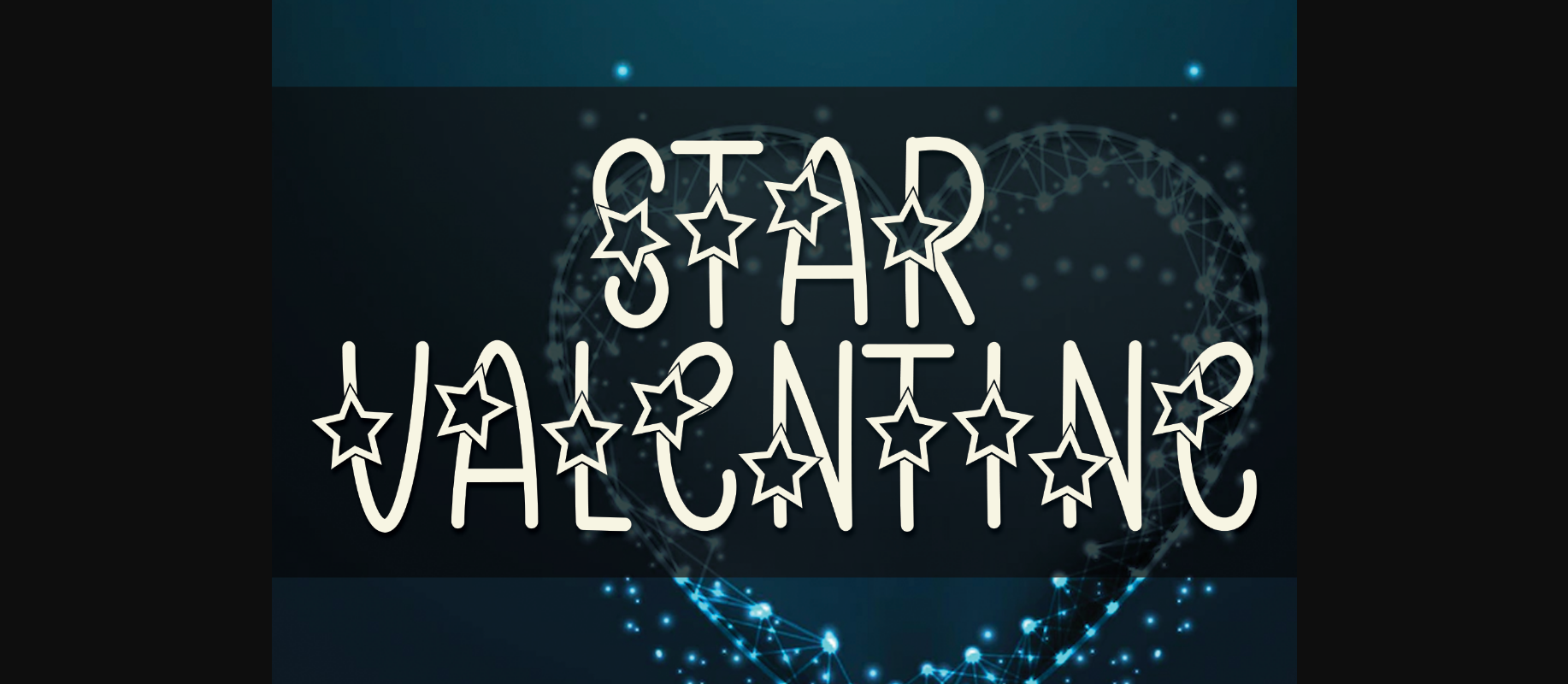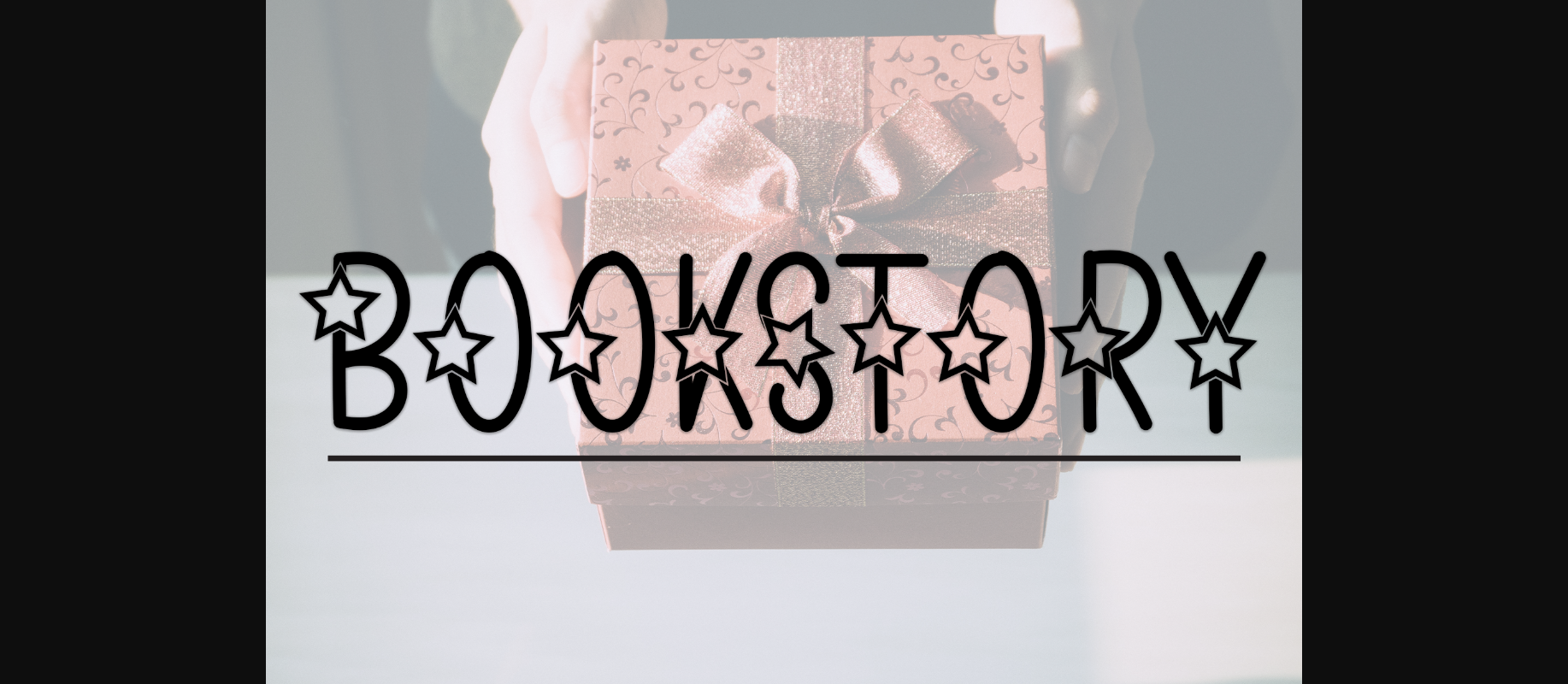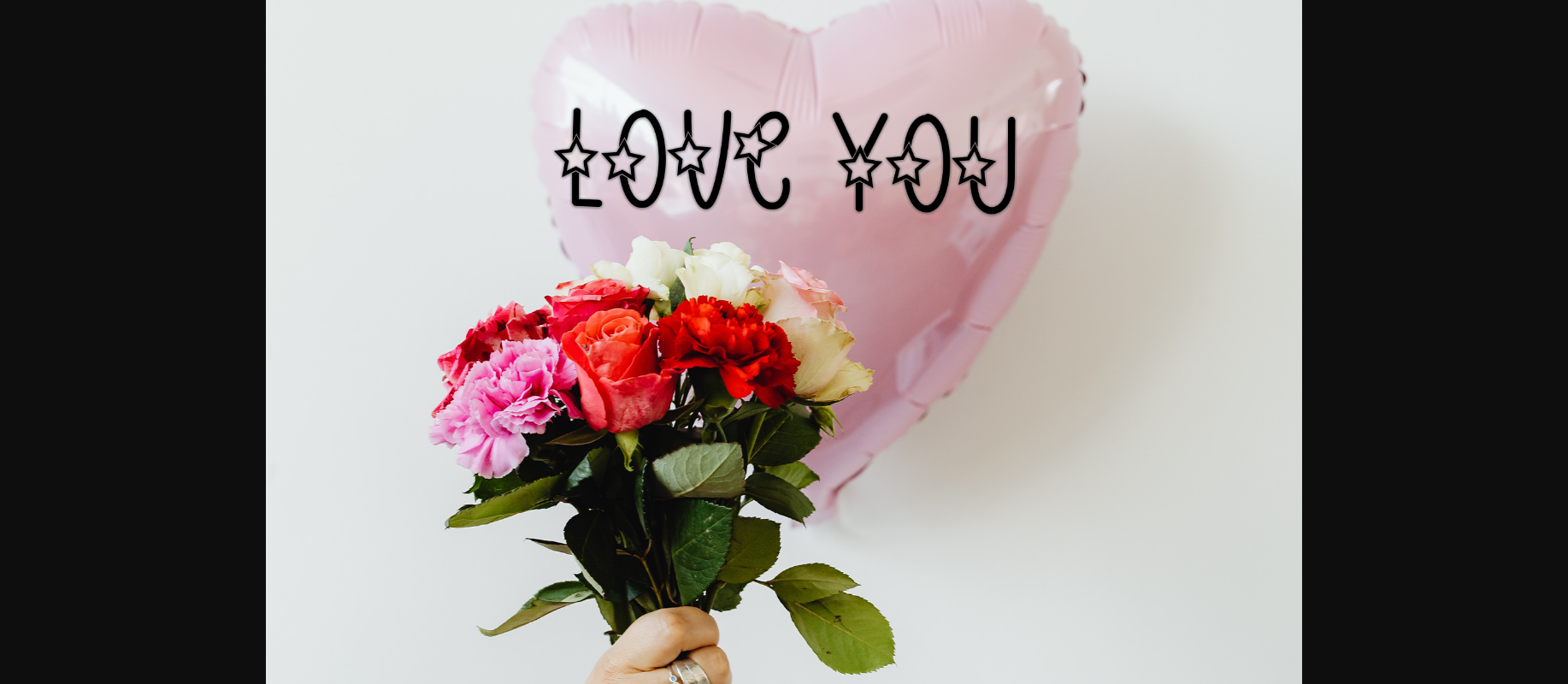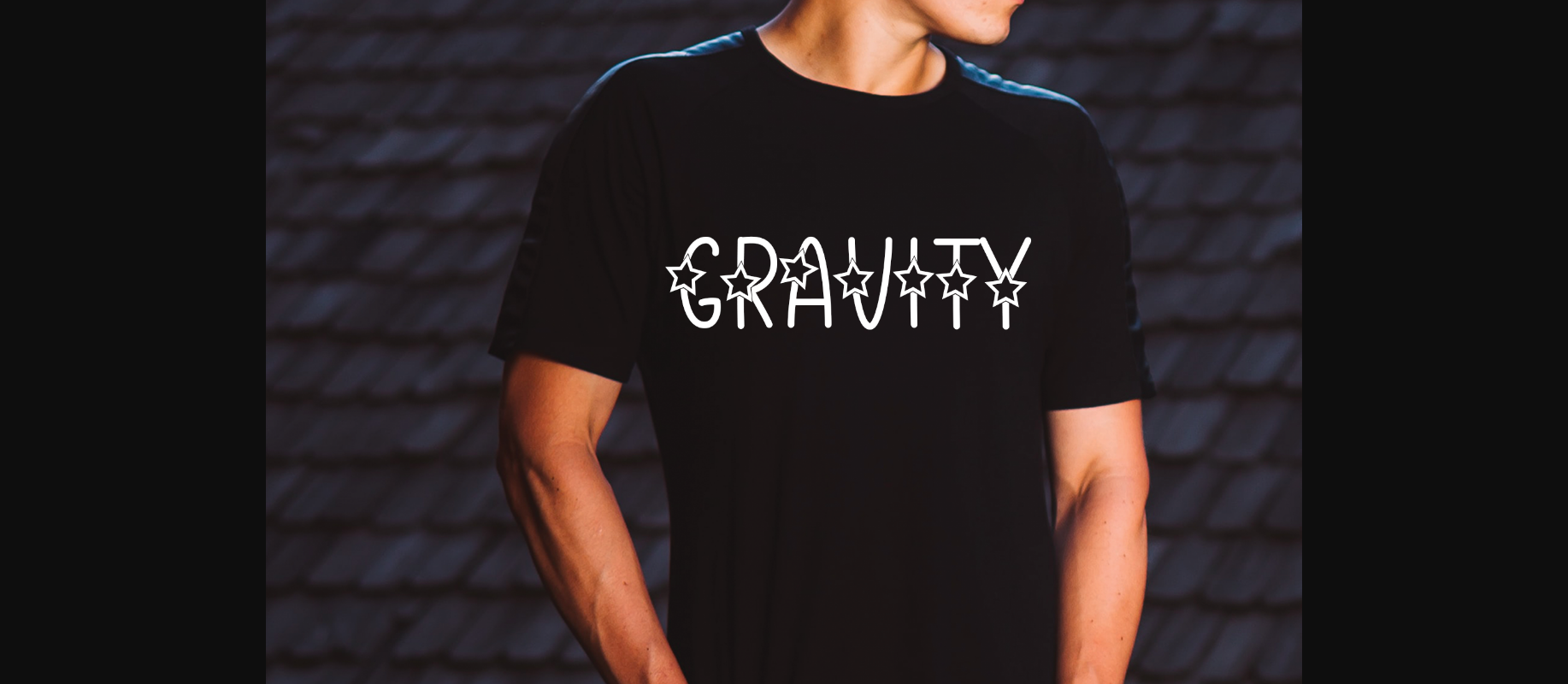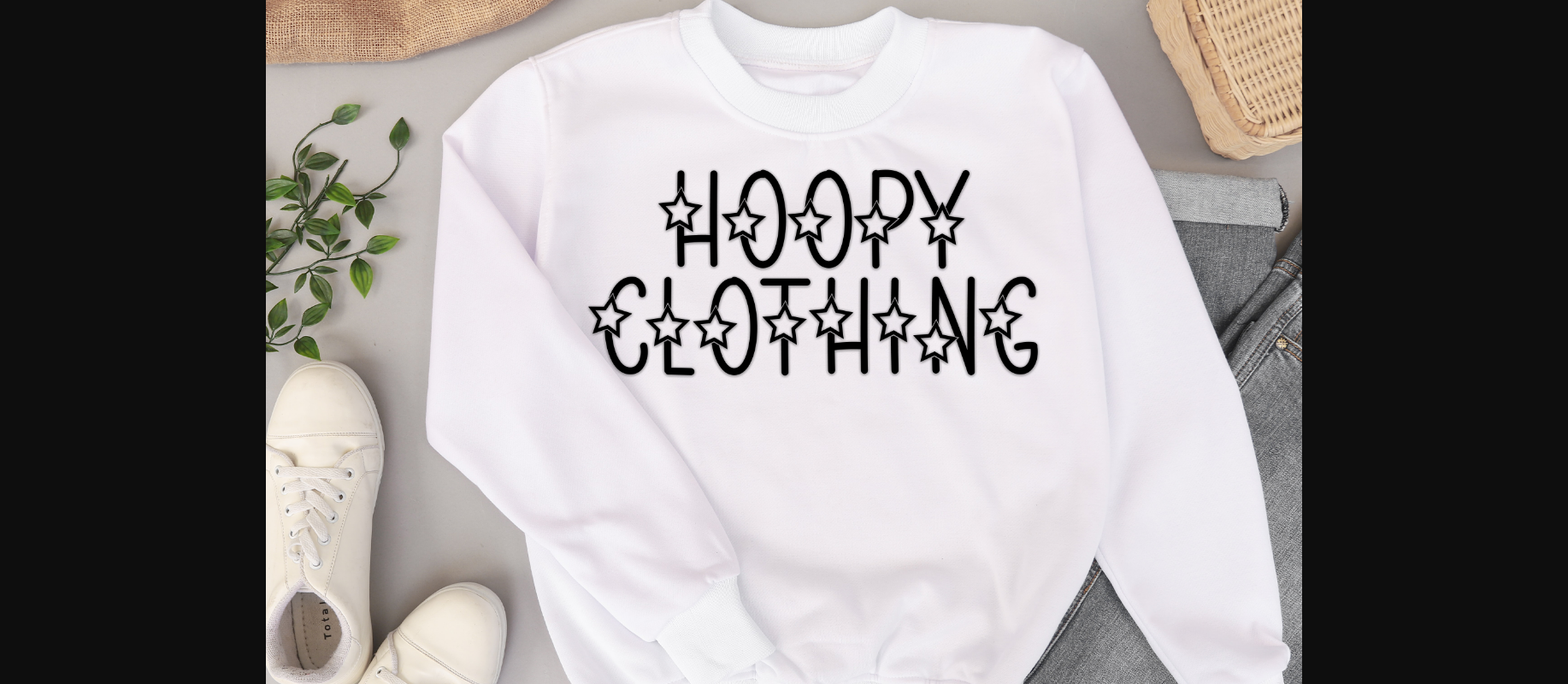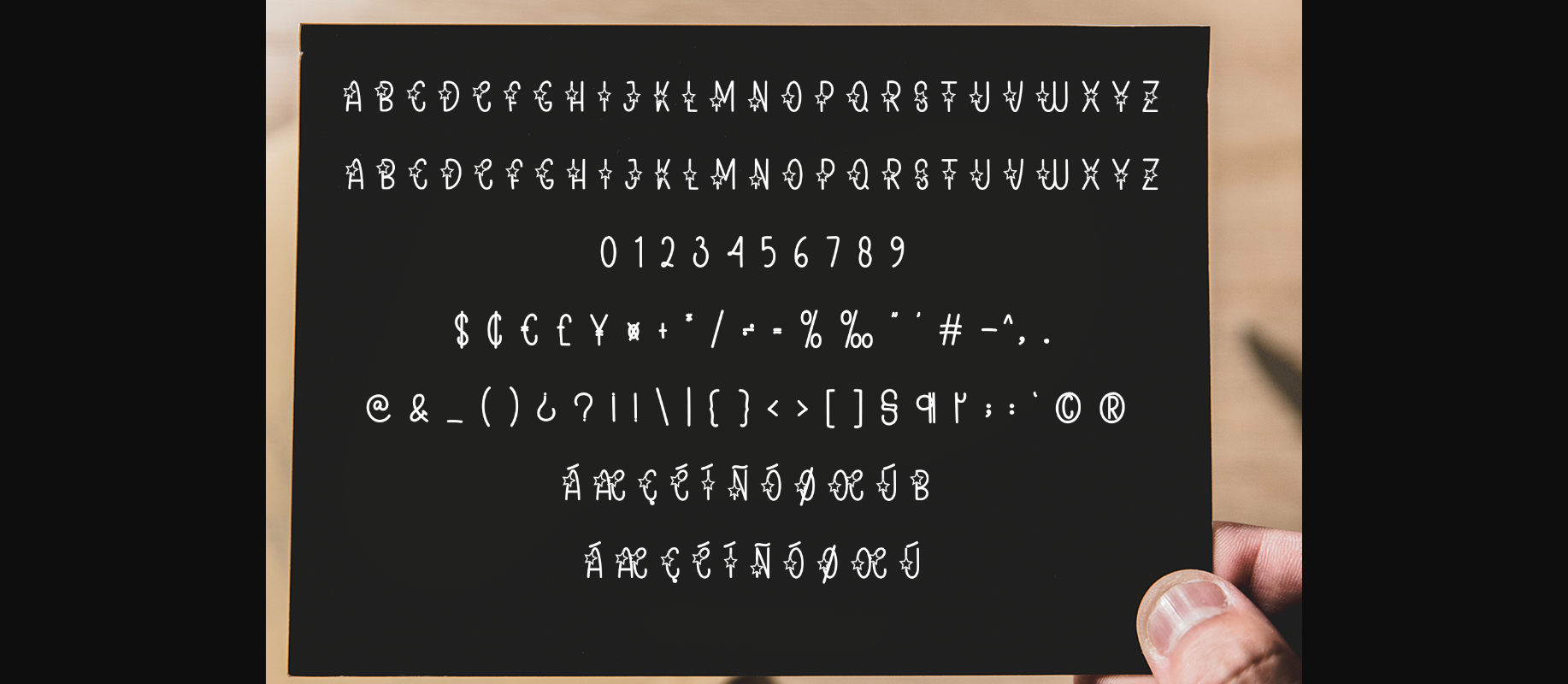
Star Valentine Font
About Star Valentine Font
Star Valentine is a sweet and friendly handwritten decorative font. Cute and creative, this font is ideal for writing wedding invitations, cards, or any other design that might need a fun touch!